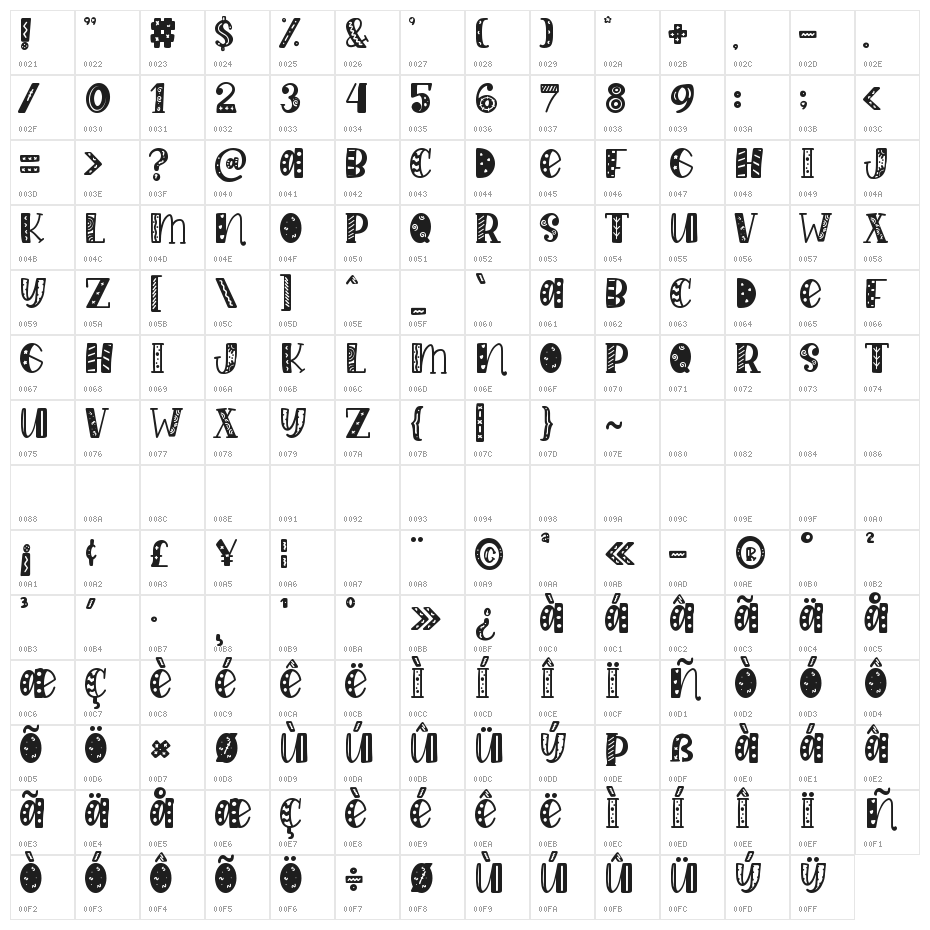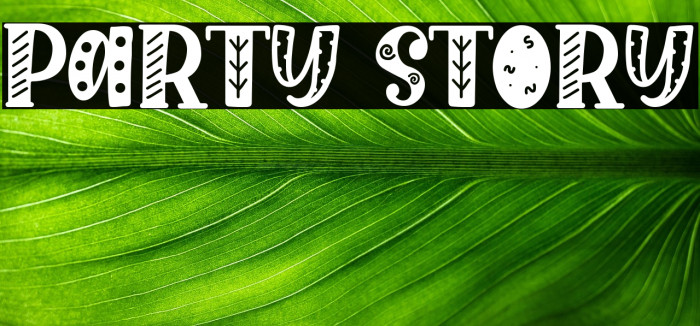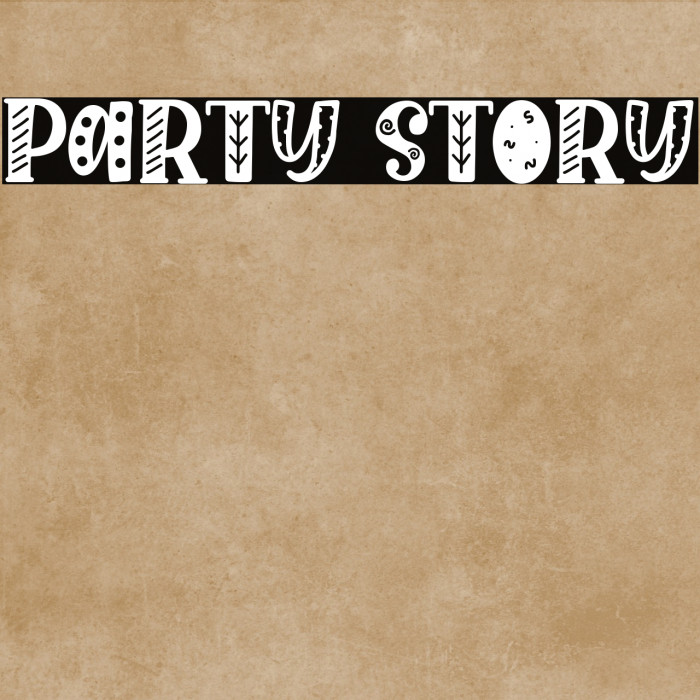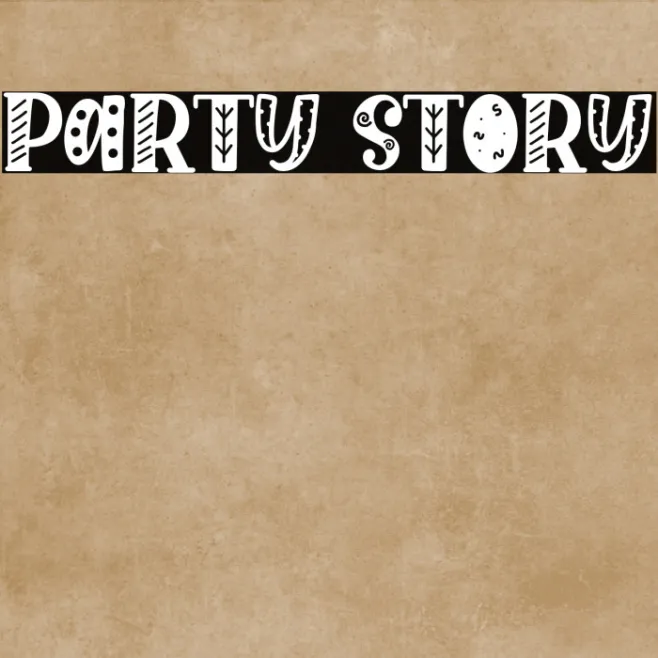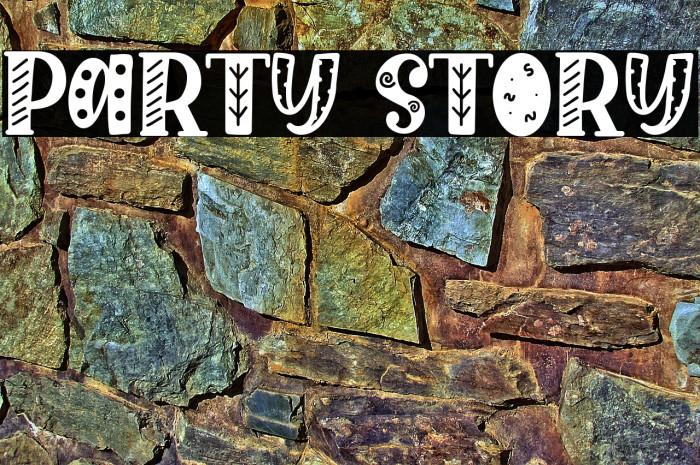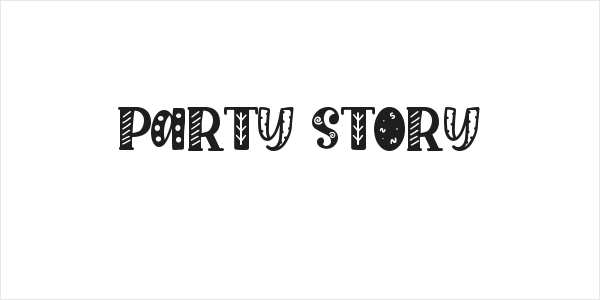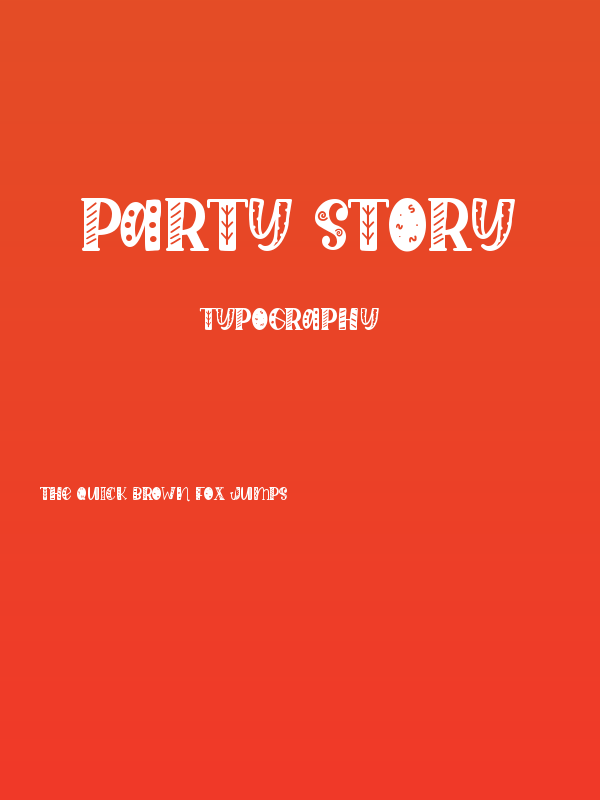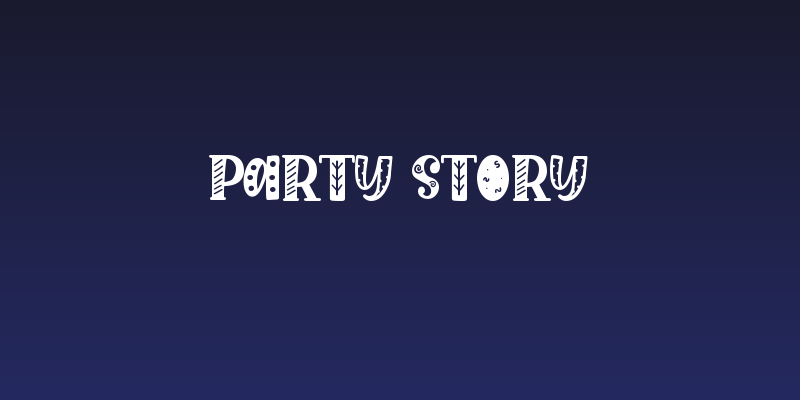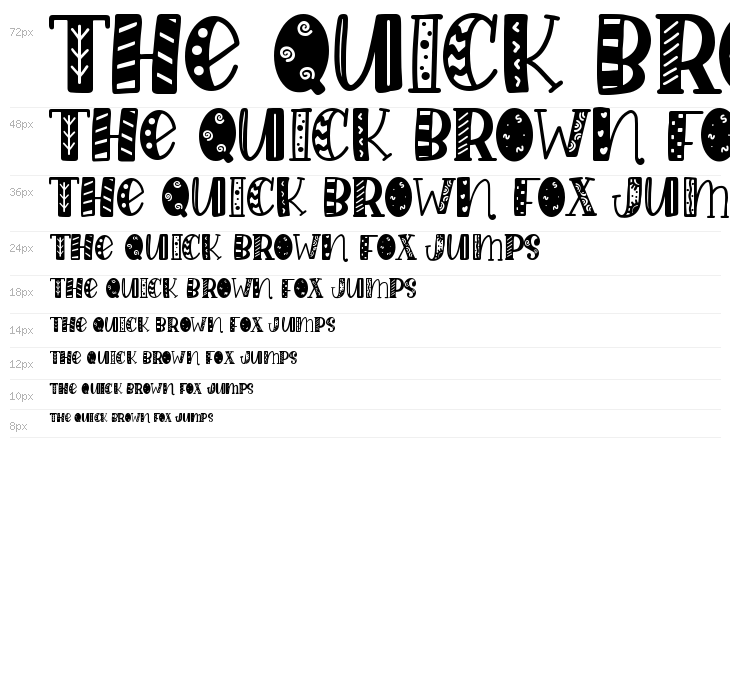
Party Story Font
Party Story Description
This playful and whimsical font features a variety of decorative elements within each character, such as dots, stripes, and stars, creating a lively and festive appearance. The letters are bold and rounded, with a mix of solid and outlined styles, adding to the dynamic and fun nature of the design. The numbers and special characters maintain this playful theme, incorporating similar decorative patterns. This font is ideal for projects that require a cheerful and energetic vibe, making it perfect for party invitations, children's books, and festive event promotions.
| Use Case | Headlines, Logos, Invitations |
| Proposed Projects | Ideal for party invitations, children's books, festive event promotions, and playful branding. |